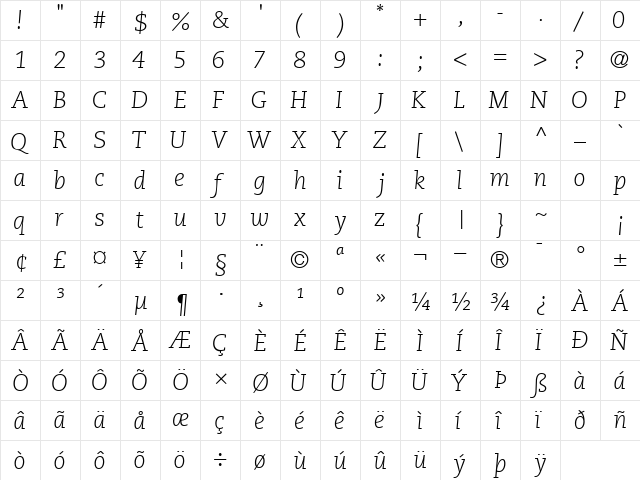
MonologueLightSSK Italic Font Preview
Design Context for MonologueLightSSK Typeface
MonologueLightSSK brings the precise, column-aligned rhythm of monospaced typography to designs that value technical clarity and systematic order. The slanted form adds forward momentum and visual energy. The delicate stroke weight brings airiness and refinement to layouts.
Pro Tip: Use MonologueLightSSK with slightly increased line-height for extended reading — fixed-width spacing can feel dense in longer passages without extra breathing room.